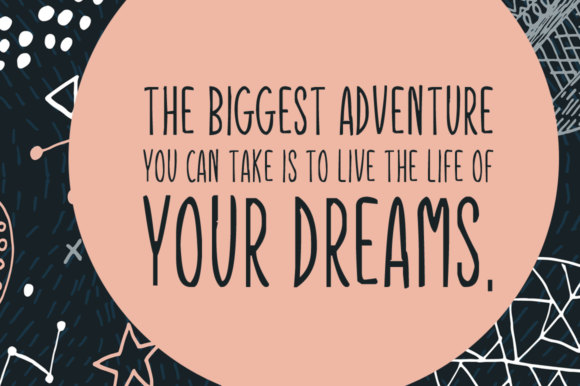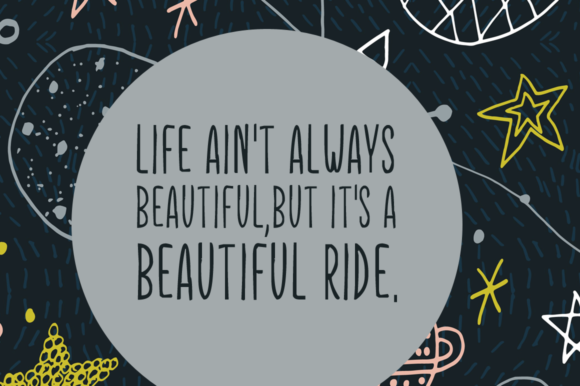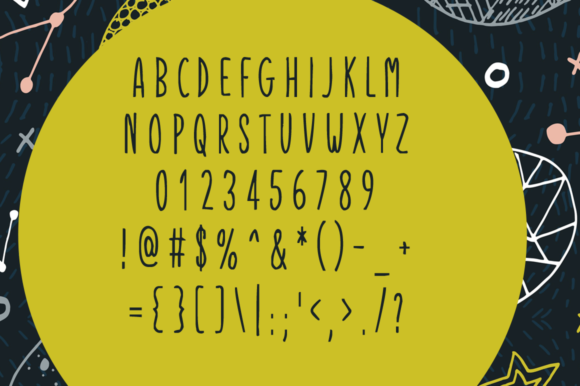
Introduction to Rancho Font
Do you remember that moment when you finally found the perfect font to elevate your design project? For many designers, it’s a moment of pure joy and excitement. The search is over, and the creative possibilities are endless. Introducing the Rancho Font, a simple yet elegant display font that will turn any project into an eye catcher!
As a valuable resource for designers, the Rancho Font offers a high-quality solution for those seeking a versatile and stylish font. Its transparent background allows for seamless integration with any design element, making it a must-have in your design arsenal. With its free download option, you can access this design resource without breaking the bank. Whether you’re a seasoned pro or a budding designer, the Rancho Font is an essential tool to add to your creative toolkit.
Rancho Font
- High-quality, professional design suitable for creative projects and presentations.
- Comes with a transparent background, making it easy to use in various design applications.
- Features a unique, elegant design style that adds a touch of sophistication to any creative project.
- Perfect for use in logos, branding materials, and other visual elements that require a high-end look.
Honest Review: Rancho Font
I recently stumbled upon the Rancho Font, and I must say it’s a great addition to any design resource. This font is perfect for a creative project that requires a touch of elegance and sophistication.
- High quality: The Rancho Font is a well-crafted font with smooth lines and a consistent design.
- Transparent background: The font’s transparent background makes it easy to use on any background image or color.
What works well is the font’s versatility. It’s suitable for a wide range of designs, from logos to signage, and even body text. The font is also highly customizable, making it a great choice for designers who want to add a personal touch to their projects.
One limitation I noticed is that the font may not be suitable for projects that require a bold or dramatic font style. The Rancho Font is more suited for designs that require a subtle and elegant look.
Overall, I’m impressed with the Rancho Font. It’s a great design resource that’s perfect for designers who want to add a touch of sophistication to their creative projects. Plus, it’s a free download, which is a definite bonus!
Rancho Font
Tips for Getting the Most Out of Rancho Font
For optimal results, use Rancho Font in conjunction with high-quality images and design elements. Experiment with different font sizes, colors, and styles to create visually appealing designs. You can also use Rancho Font’s transparent background to create layered designs with depth and dimension.
Common Use Cases for Rancho Font
Rancho Font is ideal for a variety of creative projects, including business cards, brochures, and social media graphics. Its high-quality design and transparent background make it perfect for layered designs and text overlays. With Rancho Font, you can create professional-looking designs with ease.